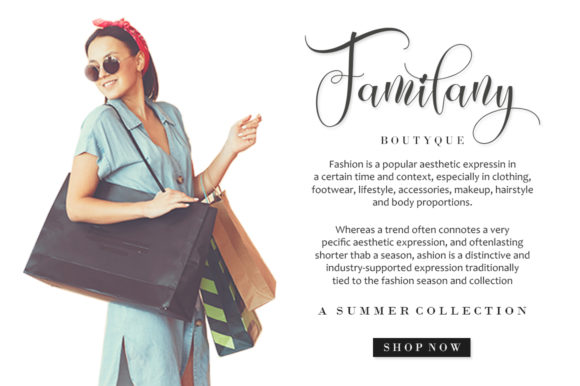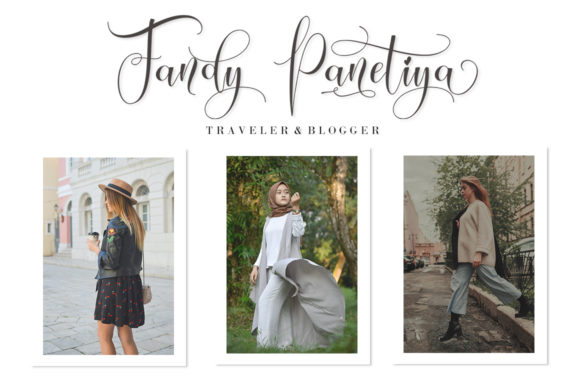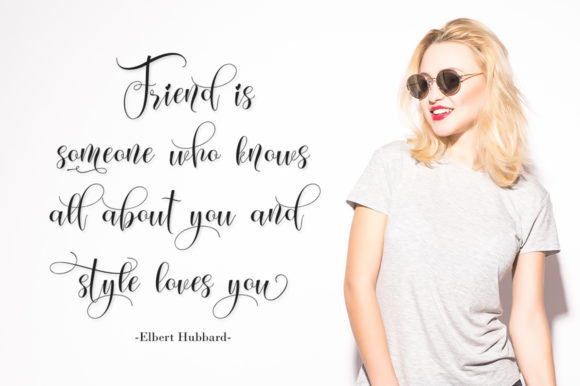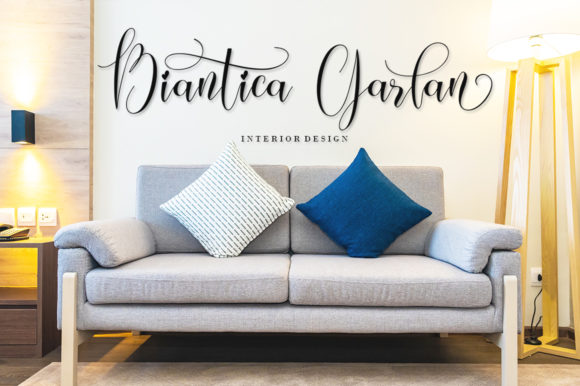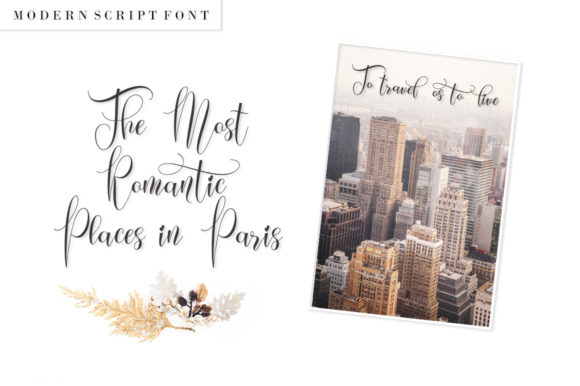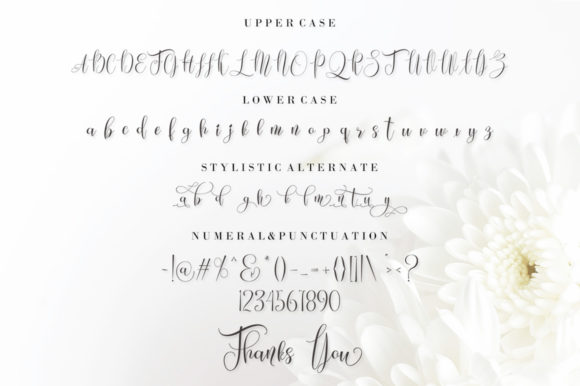
Fanitiya Font: Elevate Your Designs with Elegance and Flair
Are you a designer or crafter looking for a font that exudes elegance and sophistication? Look no further than the stunning Fanitiya Font. This beautiful handwritten font is perfect for adding a touch of refinement to a wide range of design projects, from wedding invitations and greeting cards to logos and business cards.
The Beauty of Fanitiya Font
Fanitiya Font is a true masterpiece, boasting an incredibly elegant and flowing design that is sure to captivate your audience. Its varying baseline, smooth lines, and gorgeous glyphs all come together to create a font that is both visually striking and highly legible. Whether you’re looking to add a touch of whimsy or a dash of sophistication to your designs, Fanitiya Font is the perfect choice.
One of the most popular uses for Fanitiya Font is in wedding and event designs. Its elegant and refined appearance makes it perfect for wedding invitations, thank you cards, and other stationery. The font’s beautiful, flowing lines and gorgeous glyphs will add a touch of romance and sophistication to any wedding or event design, making it truly unforgettable.
Fanitiya Font is not just limited to wedding and event designs. Its versatility makes it perfect for a wide range of design projects, including:
- Thank you cards and greeting cards
- Quotes and typography art
What Makes Fanitiya Font So Special?
So, what sets Fanitiya Font apart from other fonts? Here are just a few of its standout features:
- Varying baseline: Fanitiya Font features a varying baseline, which gives it a unique and dynamic appearance.
- Smooth lines: The font’s smooth lines and curves create a beautiful, flowing effect that is both elegant and refined.
- Gorgeous glyphs: Fanitiya Font boasts a range of gorgeous glyphs, including stunning alternates that will add a touch of sophistication to any design.
- Stunning alternates: The font’s alternates are truly stunning, offering a range of beautiful options for adding a touch of elegance and refinement to your designs.
Why Designers and Crafters Love Fanitiya Font
Designers and crafters love Fanitiya Font for a range of reasons. Here are just a few:
- Elegance: Fanitiya Font is the epitome of elegance, making it perfect for designs that require a touch of sophistication.
- Versatility: The font’s versatility makes it perfect for a wide range of design projects, from wedding invitations to logos and branding.
- Easy to read: Despite its elegant appearance, Fanitiya Font is highly legible, making it perfect for designs that require a clear and easy-to-read font.
In conclusion, Fanitiya Font is a truly stunning font that is perfect for designers and crafters looking to add a touch of elegance and sophistication to their designs. Its beautiful, flowing lines, gorgeous glyphs, and stunning alternates make it perfect for a wide range of design projects, from wedding invitations and greeting cards to logos and business cards. Whether you’re looking to create a beautiful wedding invitation or a stunning logo, Fanitiya Font is the perfect choice.
Tips for Using Fanitiya Font
Here are a few tips for getting the most out of Fanitiya Font:
- Use it sparingly: While Fanitiya Font is beautiful, it’s best used sparingly to avoid overwhelming your design.
- Pair it with other fonts: Fanitiya Font pairs beautifully with other fonts, including serif and sans-serif fonts.
- Experiment with sizes: Don’t be afraid to experiment with different font sizes to find the perfect balance for your design.
By following these tips and using Fanitiya Font in your designs, you’ll be able to create beautiful, elegant designs that will captivate your audience.